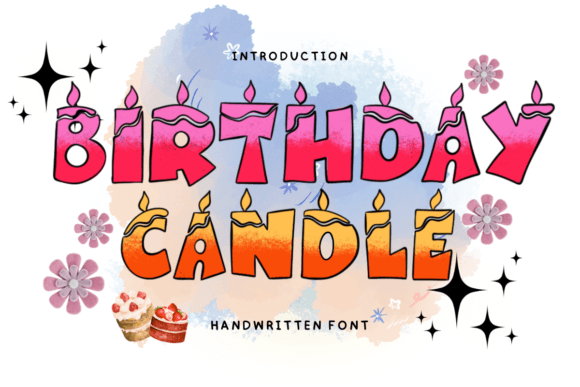
The Charm of Birthday Candle Font: A Designer’s Delight
I’ll never forget the time I was working on a project for a client’s birthday party, trying to find the perfect font to match the whimsical theme. I scrolled through page after page of Google Fonts, but nothing seemed quite right. That was until I stumbled upon Birthday Candle, a unique handwritten font that burst with the charm of all things handmade. In this article, I’ll share my experience with Birthday Candle, its features, and how to make the most of it in your designs.
As a designer, I’m always on the lookout for fonts that can add a touch of personality to my projects. Birthday Candle has become a go-to font for me, and here’s why:
• ✨ Unique and Whimsical: Birthday Candle has a playful, handwritten feel that’s perfect for adding a touch of whimsy to any design.
• ✅ Versatile: Despite its name, Birthday Candle is not just limited to birthday-themed designs. It’s versatile enough to be used in a variety of projects, from greeting cards to social media posts.
• 💫 Easy to Read: The font is clear and easy to read, making it perfect for both digital and print designs.
While Birthday Candle is a fantastic font, it’s not without its quirks:
• 🤔 Limited Formality: As a handwritten font, Birthday Candle may not be the best choice for formal or professional designs.
• ⚠️ Glyph Limitations: Some users have reported that the font could benefit from more glyphs and special characters.
The Story Behind Birthday Candle
Birthday Candle was designed with versatility in mind. The designer wanted to create a font that would be perfect for everyday use, from note-taking to design projects. Inspired by the charm of handmade crafts, Birthday Candle is a unique and playful font that’s sure to add a touch of personality to any design.
What is the best use for Birthday Candle font? Birthday Candle is perfect for creative and playful designs, such as greeting cards, social media posts, and craft projects.
Is Birthday Candle suitable for formal designs? No, Birthday Candle is a handwritten font and may not be suitable for formal or professional designs.
Birthday Candle font is a unique and versatile design element that’s perfect for adding a touch of whimsy to your designs. With its playful, handwritten feel and range of creative possibilities, it’s sure to become a favorite among designers, crafters, and creative hobbyists.